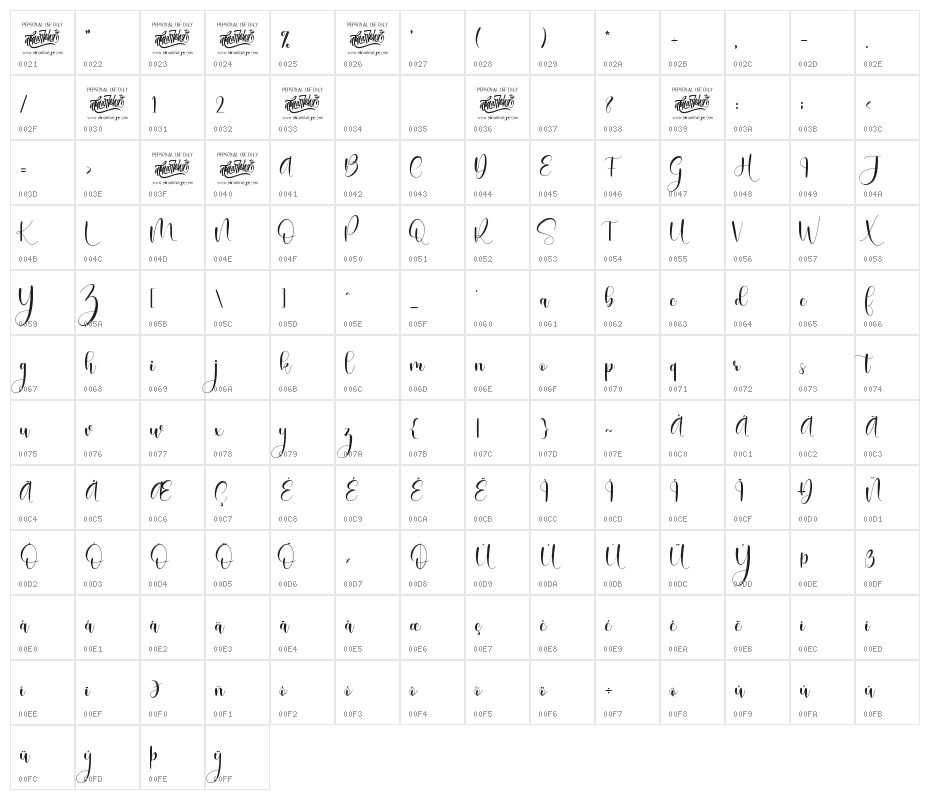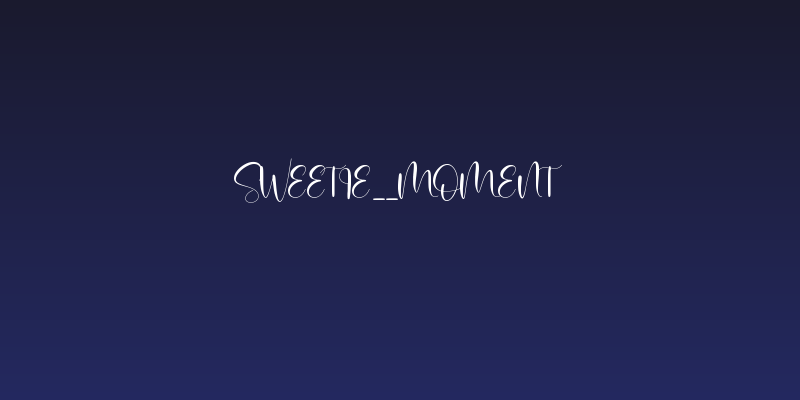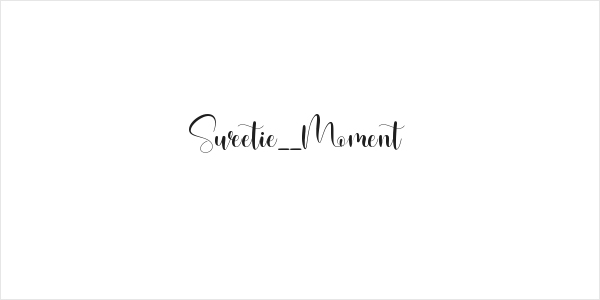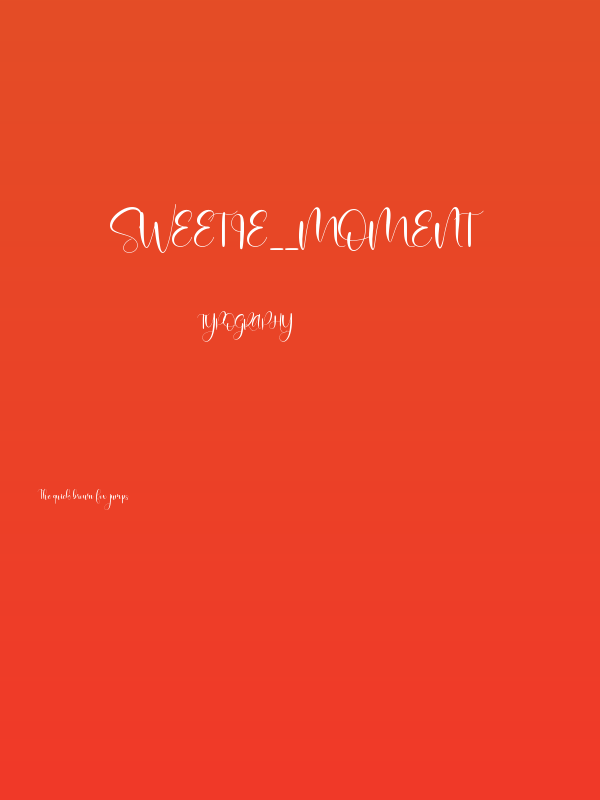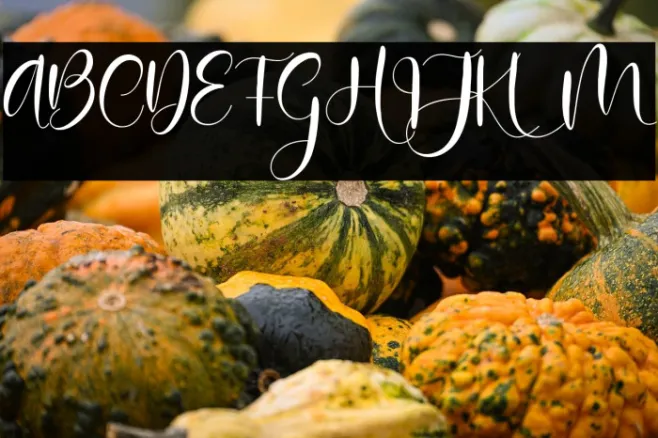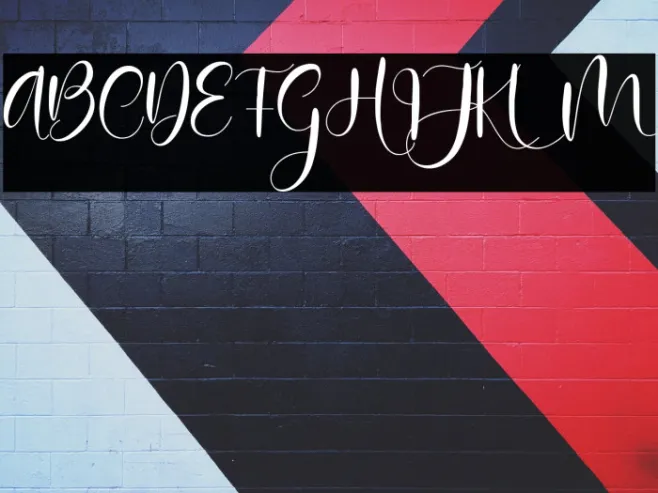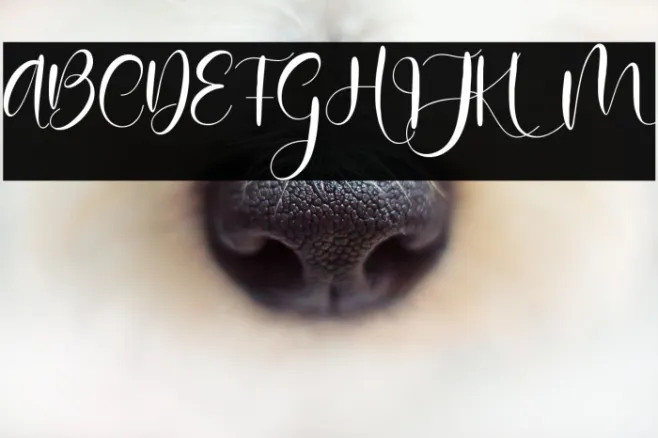
Sweetie__Moment Font
Sweetie__Moment Description
This font exudes a playful and elegant charm, characterized by its flowing, cursive script style. The uppercase letters are bold and feature intricate loops and swirls, creating a sense of movement and grace. The lowercase letters maintain a consistent style, with smooth curves and a slightly more restrained flourish compared to the uppercase. The numbers and special characters are designed to complement the letters, maintaining the same whimsical and artistic flair. Overall, this font is perfect for adding a touch of sophistication and creativity to any project.
| Use Case | Logos, Invitations, Creative projects |
| Proposed Projects | Ideal for wedding invitations, greeting cards, branding, and creative projects that require a touch of elegance and personality. |